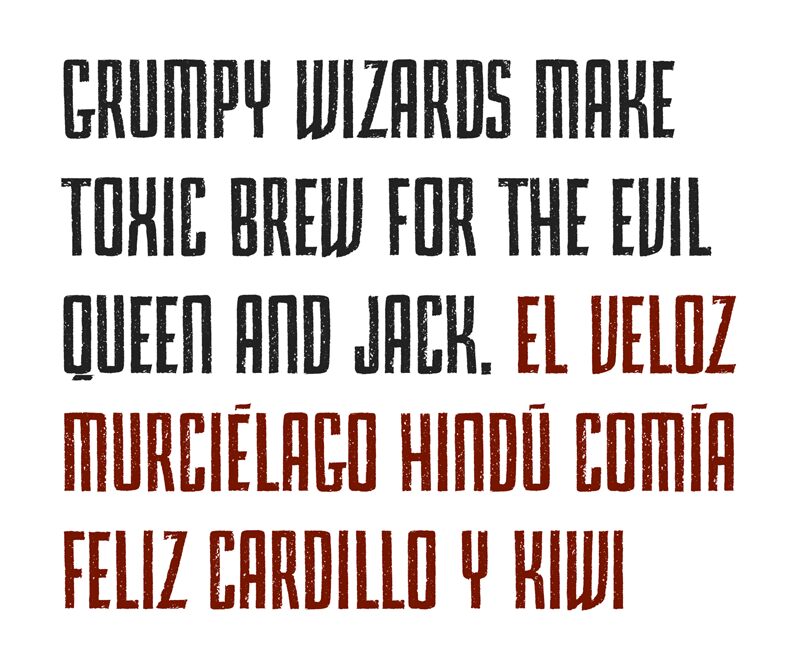
Primma Handmade, designed by Jordi Sempere for Grow the Type, is a free eroded display font with towering, tightly packed letters. Blunt corners and scattered scratches mimic a rough industrial print.
Concert posters and rugged food packaging both suit its forceful height and battered surface, despite serving very different settings. It also fits album covers and event merchandise, but poster headlines are its clearest role because the weathered texture becomes part of the image.